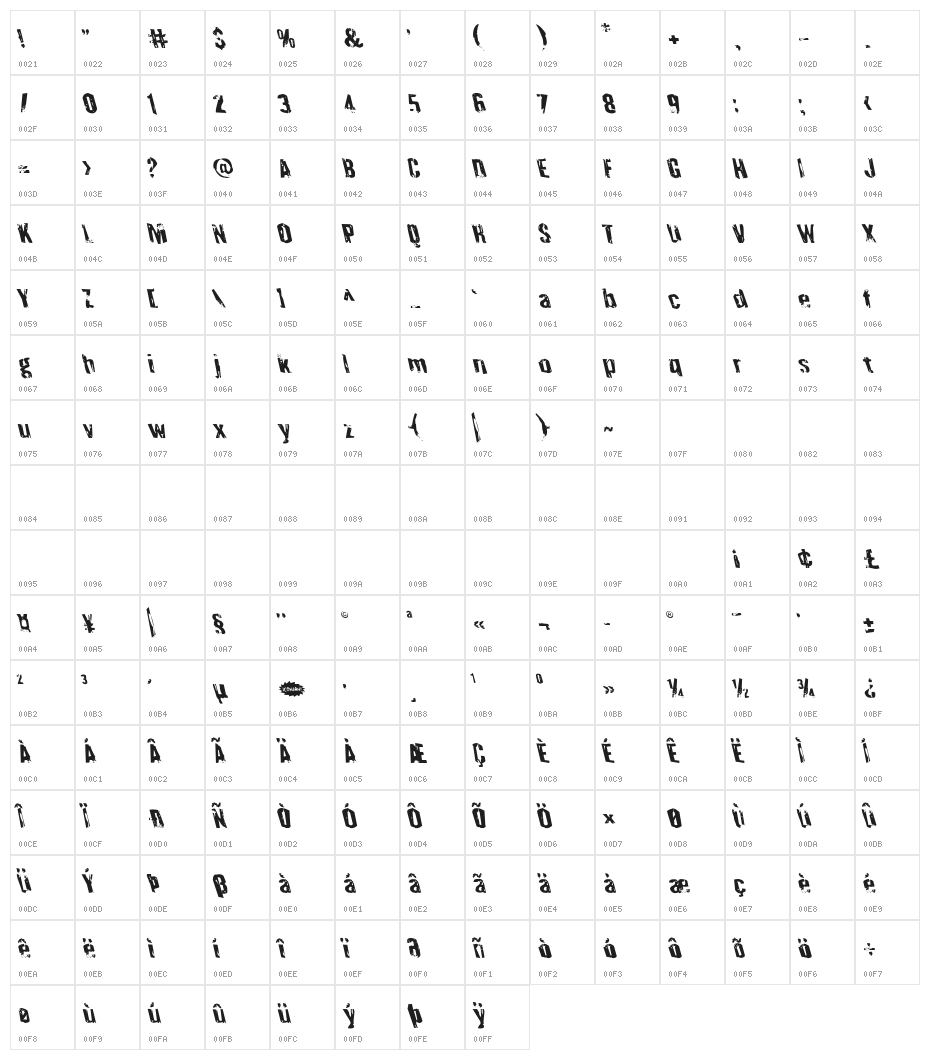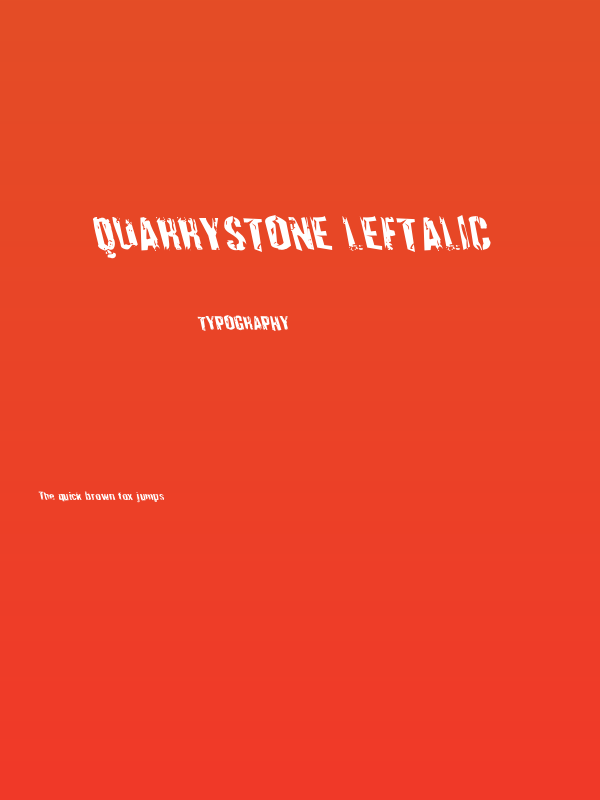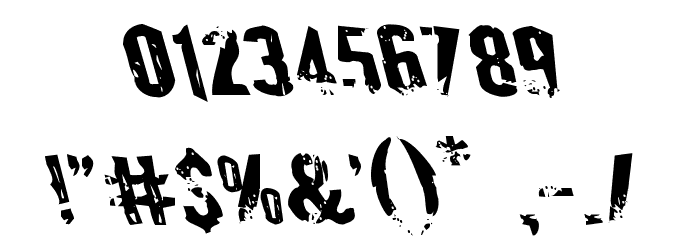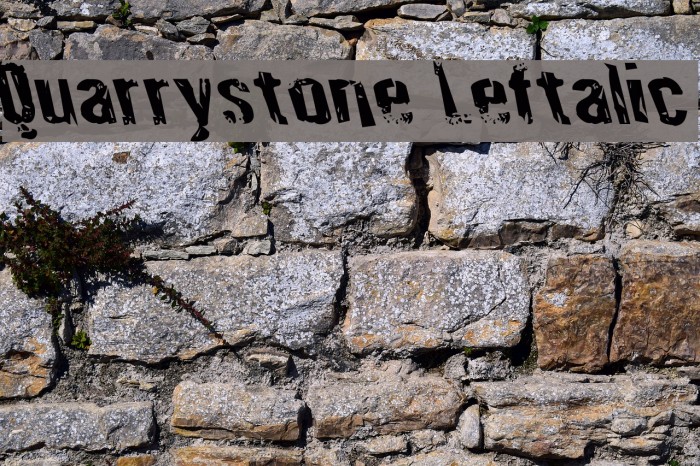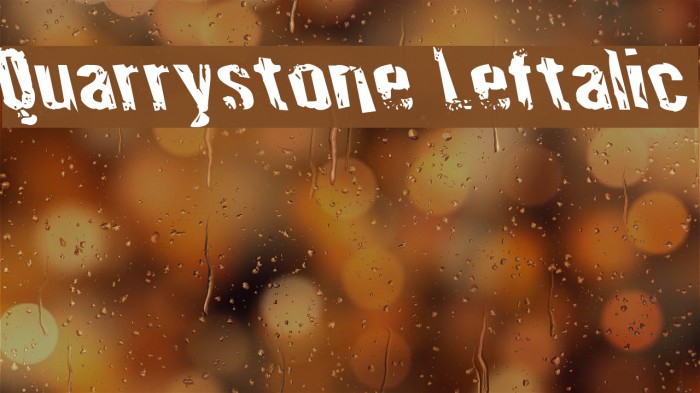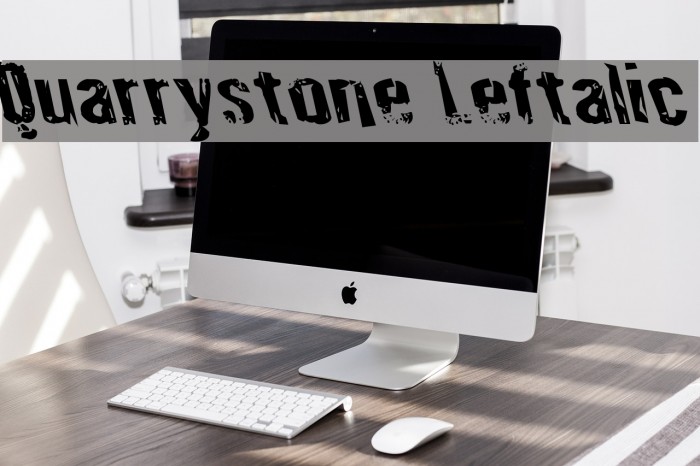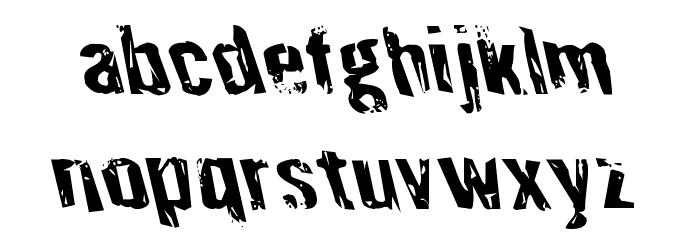
Quarrystone Leftalic Font
Quarrystone Leftalic Description
This font features a rugged, distressed appearance with a bold and impactful style. The characters are designed with a rough texture that gives them a weathered, eroded look, reminiscent of stone or concrete surfaces. The uppercase and lowercase letters maintain a consistent style, with jagged edges and irregular shapes that add to the font's unique character. Numbers and special characters follow the same design principles, ensuring a cohesive look across all text elements. The font's overall aesthetic is both edgy and artistic, making it suitable for projects that require a strong visual impact.
| Proposed Projects | Ideal for posters, album covers, branding for extreme sports, or any design needing a gritty, impactful look. |